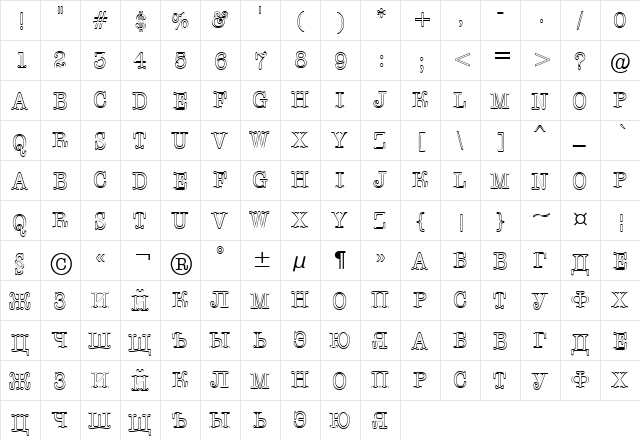
a_OldTyperTitulNrOtl Regular
Design Context for a_OldTyperTitulNrOtl Typeface
a_OldTyperTitulNrOtl offers clean, dependable letterforms without strong stylistic allegiance, making it a practical choice for designers who need flexibility.